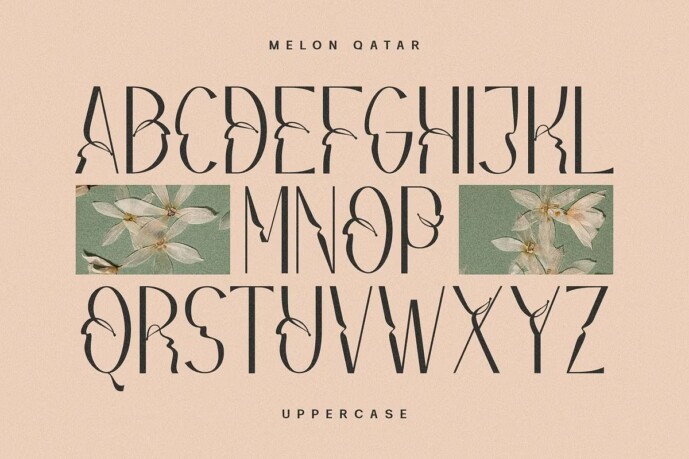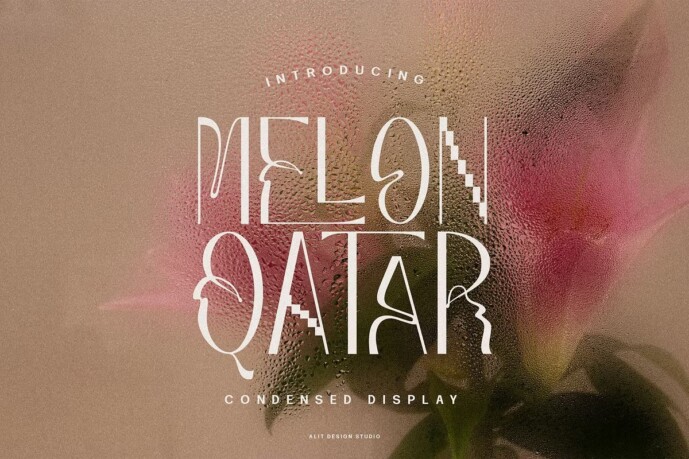
Melon Qatar Font
Designer: alit design
Melon Qatar Font is a distinctive and contemporary sans serif typeface that combines elegance and versatility. This tall font stands out with its sleek and elongated letterforms, making it perfect for modern and sophisticated designs.